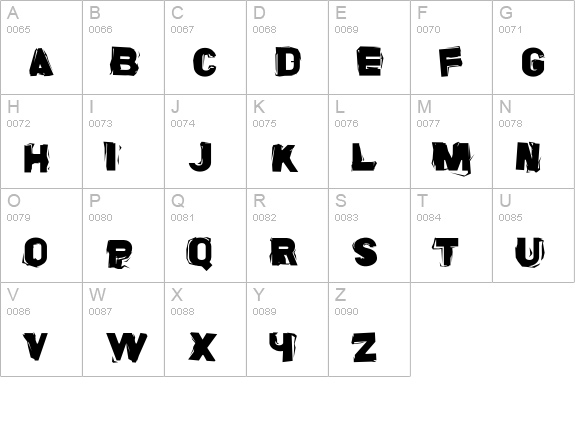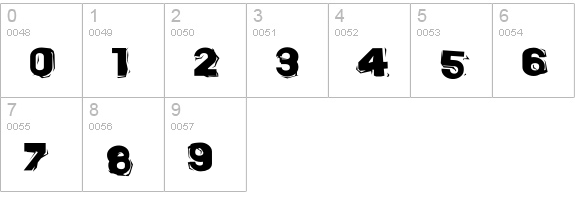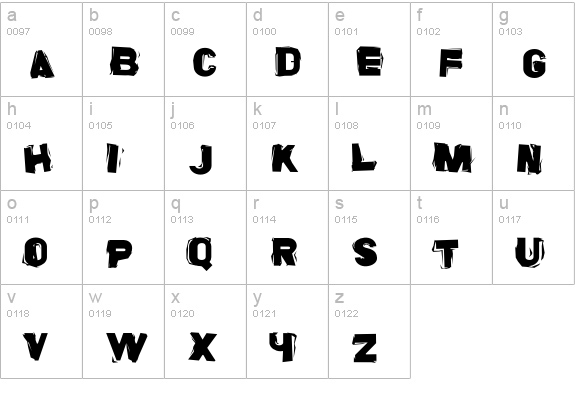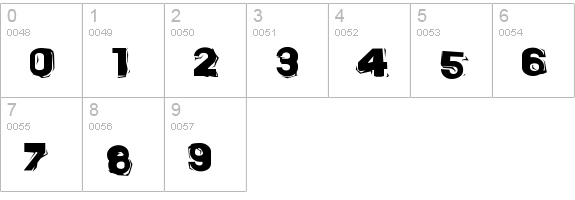
SixGunShootout Font Details
Introducing SixGunShootout, a dynamic and bold font that will instantly transport your designs to the thrilling world of the Wild West. With its rugged edges and vintage-inspired charm, this typeface captures the essence of classic cowboy showdowns and gunfight duels. SixGunShootout is not only visually captivating but also versatile, making it perfect for a wide range of creative projects. Whether you're designing posters for your favorite Western films, creating eye-catching signage for a country-themed event, or adding a touch of adventure to your branding materials, this font has got you covered. But what truly sets SixGunShootout apart is its unique appeal and the fact that it's available for free! Yes, you read that right. This font is freely downloadable at FontsMarket.com, allowing you to effortlessly add a dose of rugged authenticity to your designs without breaking the bank. Crafted with meticulous attention to detail, SixGunShootout exudes a sense of raw energy and untamed spirit. Its distinct letterforms evoke the powerful imagery of vintage wanted posters, saloon signage, and classic Western typography. Every glyph is carefully hand-drawn, ensuring that each character is truly one-of-a-kind. Whether you're aiming for a nostalgic nod to the Old West or a contemporary twist on Western aesthetics, SixGunShootout delivers the perfect balance of tradition and modernity. Its wide range of uppercase and lowercase letters, numerals, punctuation marks, and special characters allow you to create captivating compositions that command attention. So, saddle up and take a ride into the world of SixGunShootout. With its authentic Western vibe, versatile usage, and the added bonus of being freely available to download at FontsMarket.com, this font is a must-have for any designer looking to add a touch of frontier flair to their work. Let SixGunShootout be your trusty sidearm in the typographic frontier, ensuring that your designs always hit the mark.